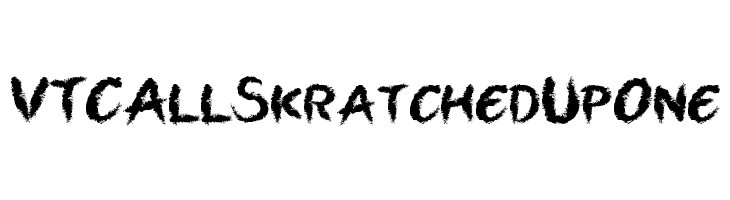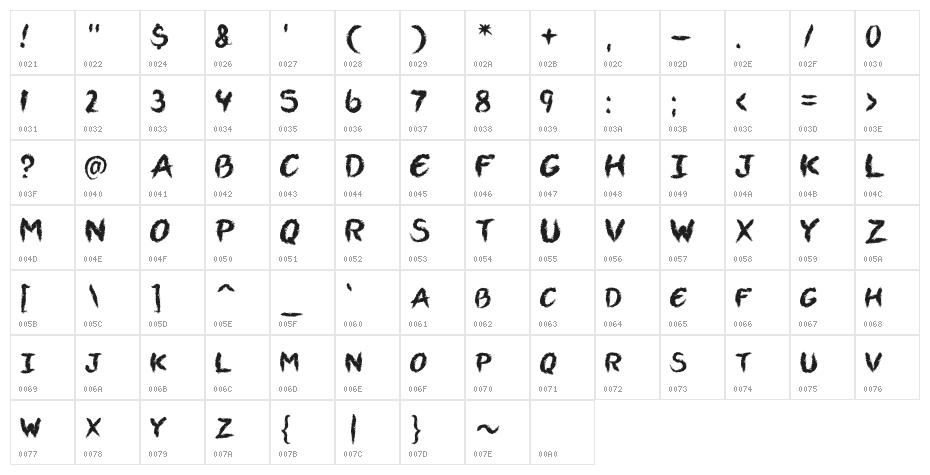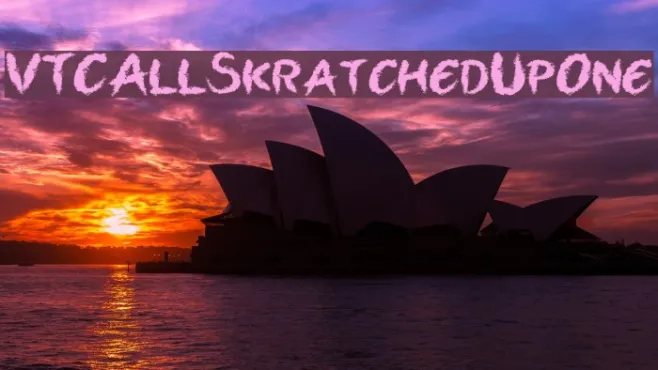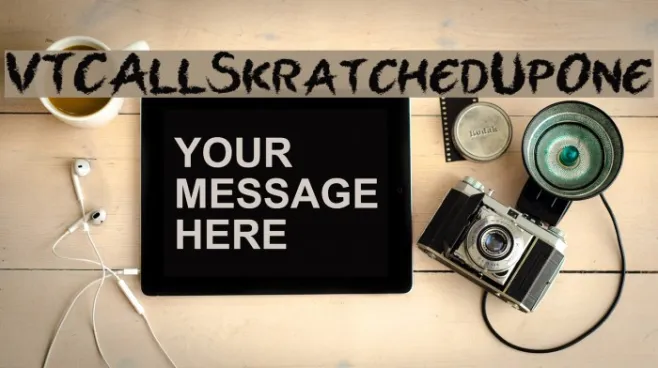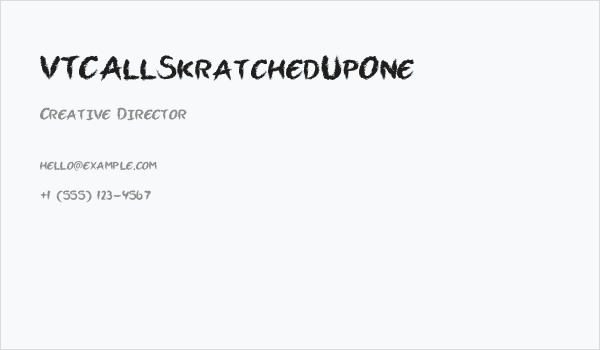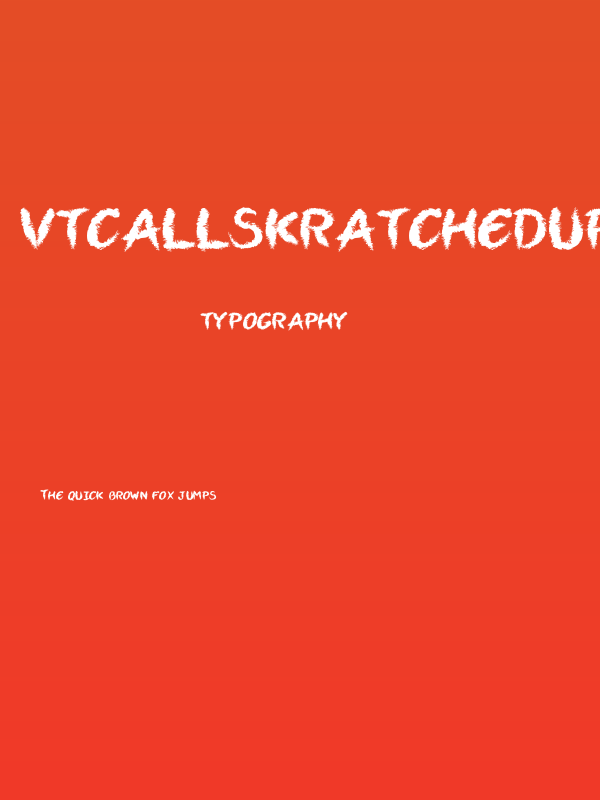
VTCAllSkratchedUpOne Font
VTCAllSkratchedUpOne Description
This font features a rugged, distressed appearance, reminiscent of scratched surfaces or worn textures. Each character is uniquely styled with jagged edges and irregular strokes, giving it a raw and edgy look. The uppercase and lowercase letters maintain a consistent style, with numbers and special characters following suit. The font's chaotic yet artistic design makes it stand out, ideal for projects that require a bold and unconventional aesthetic. Its distinctive style can evoke a sense of rebellion or creativity, making it suitable for artistic or alternative themes.
| Proposed Projects | Album covers, street art posters, edgy branding, or alternative magazine titles. |